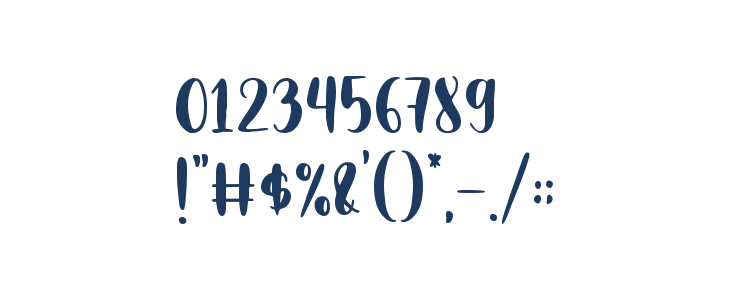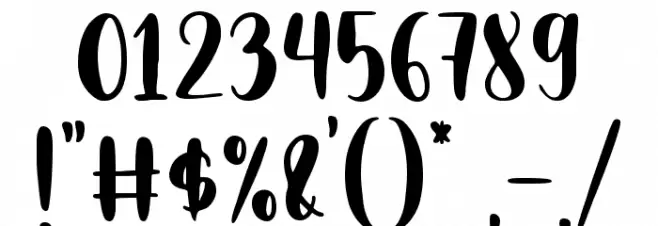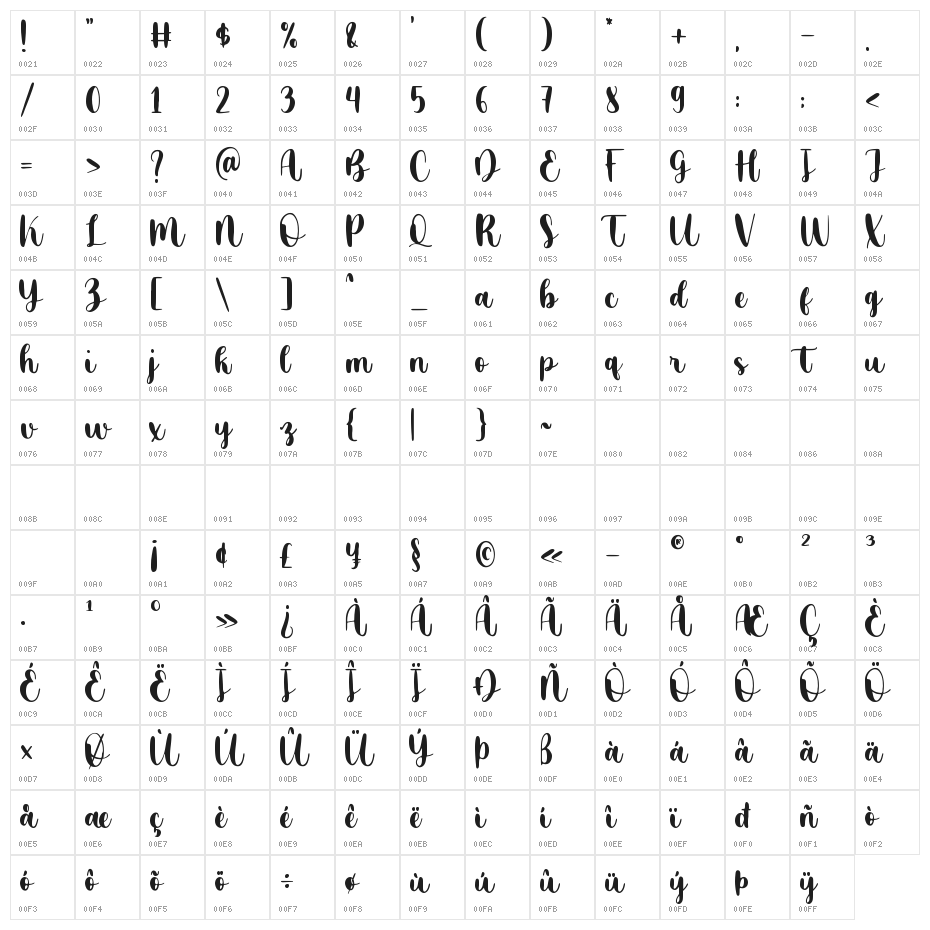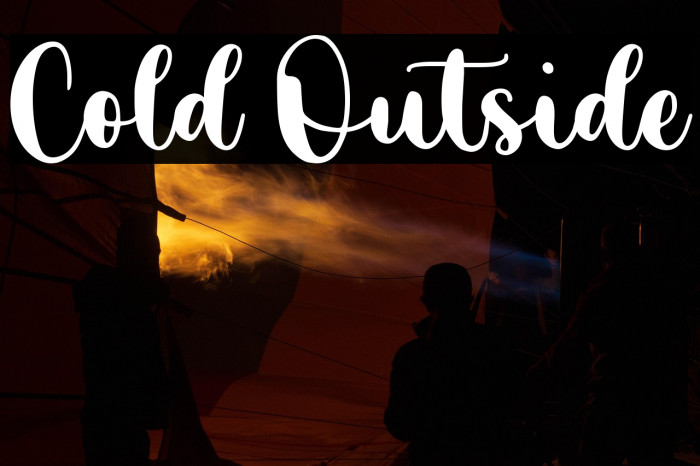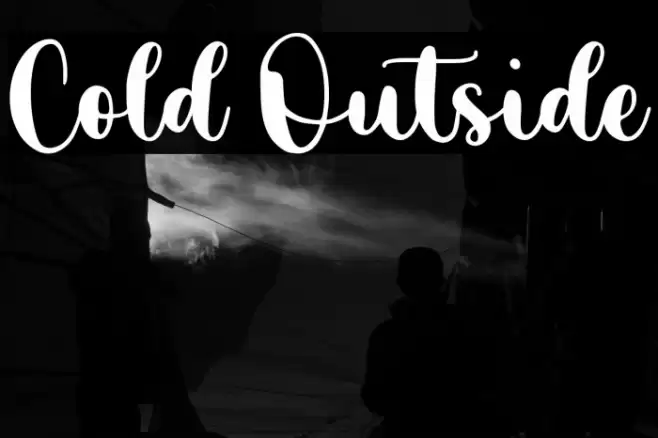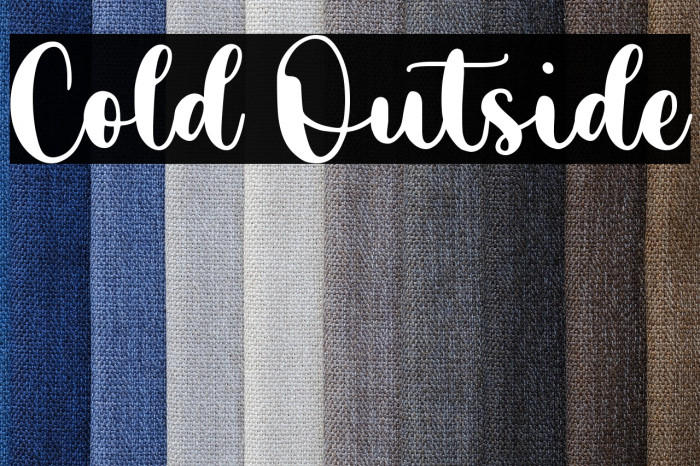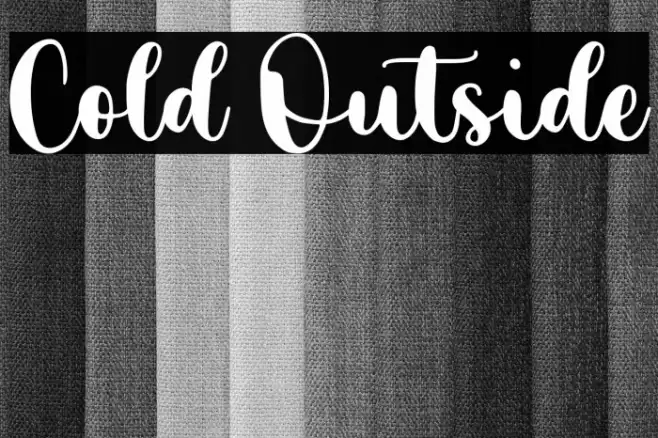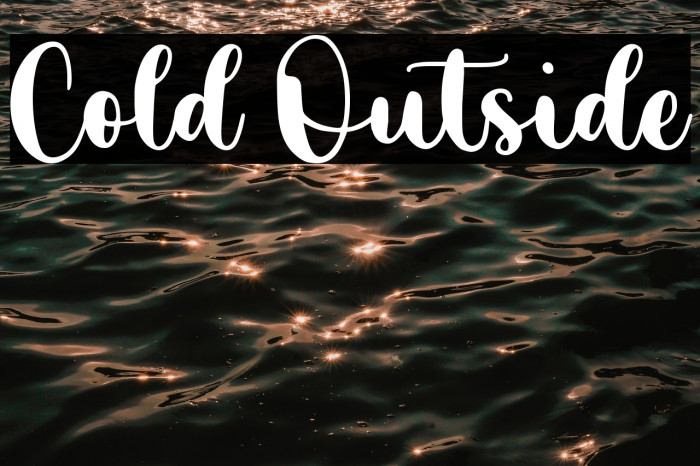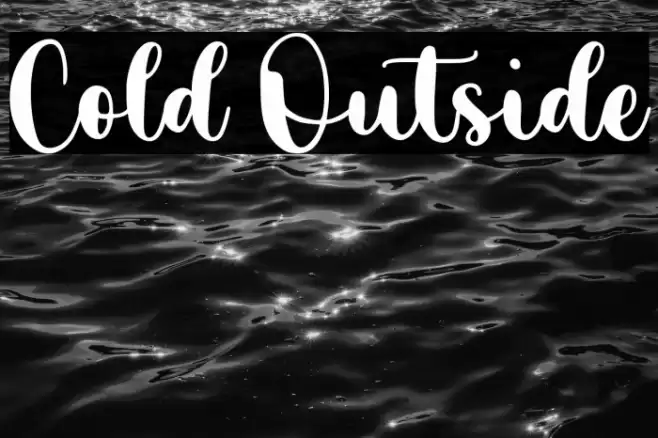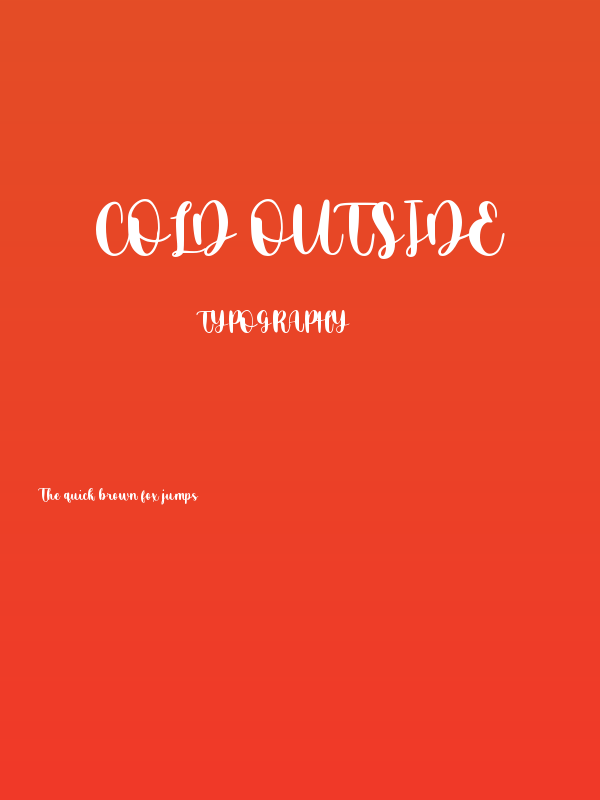
Cold Outside Font
This font features a bold, flowing script style that exudes elegance and creativity. The uppercase letters are characterized by their sweeping curves and loops, giving a sense of movement and fluidity. The lowercase letters maintain a consistent style, with rounded forms and smooth connections between strokes. The numbers are bold and clear, matching the overall aesthetic of the font. Special characters are designed with the same attention to detail, ensuring they blend seamlessly with the rest of the typeface. This font is perfect for projects that require a touch of sophistication and artistic flair.